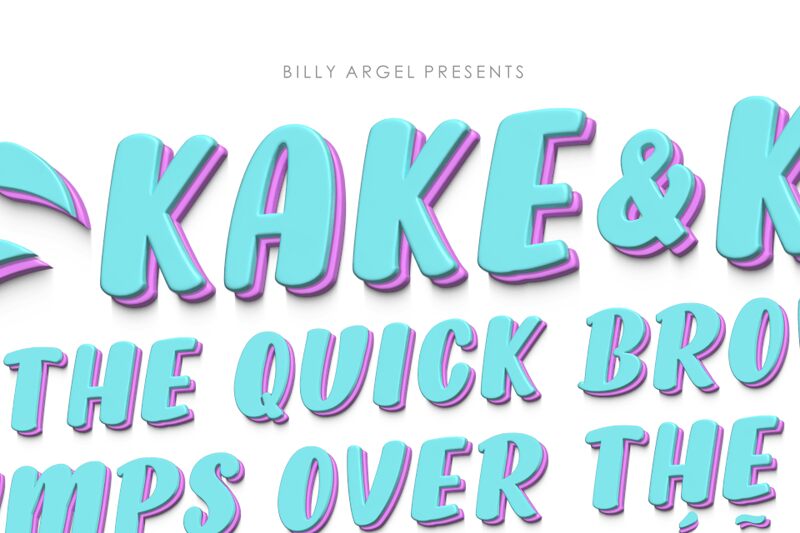
Kake & Kake font by Billy Argel Fonts is a free display typeface characterized by its bold, retro-inspired characters. The vintage typeface features a slight tilted orientation, shadowed elements, and three-dimensional effects for a deeply original appearance. Uniquely designed to capture attention and make memorable impressions.
It comes in two versions: regular and regular italic.